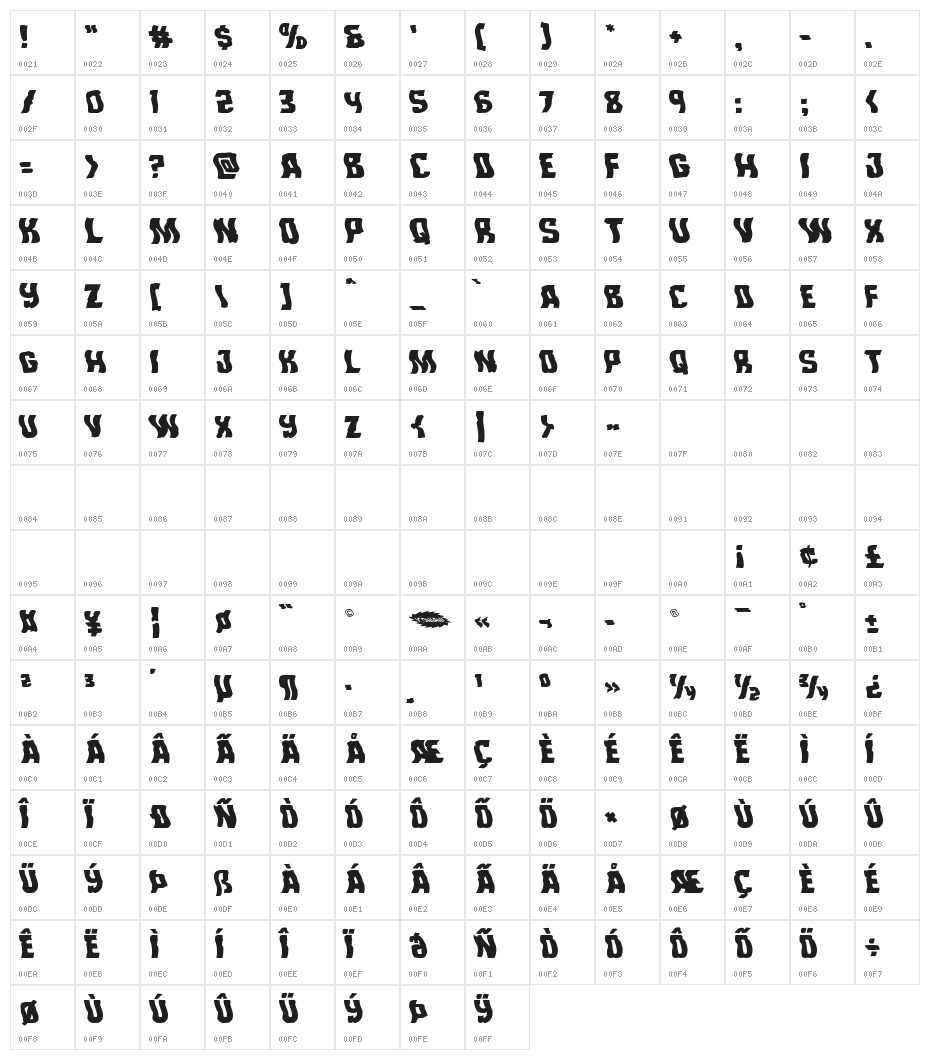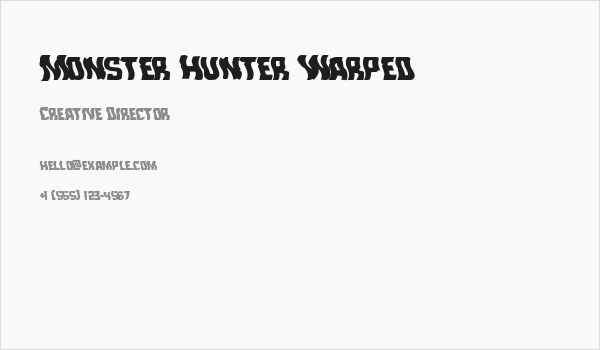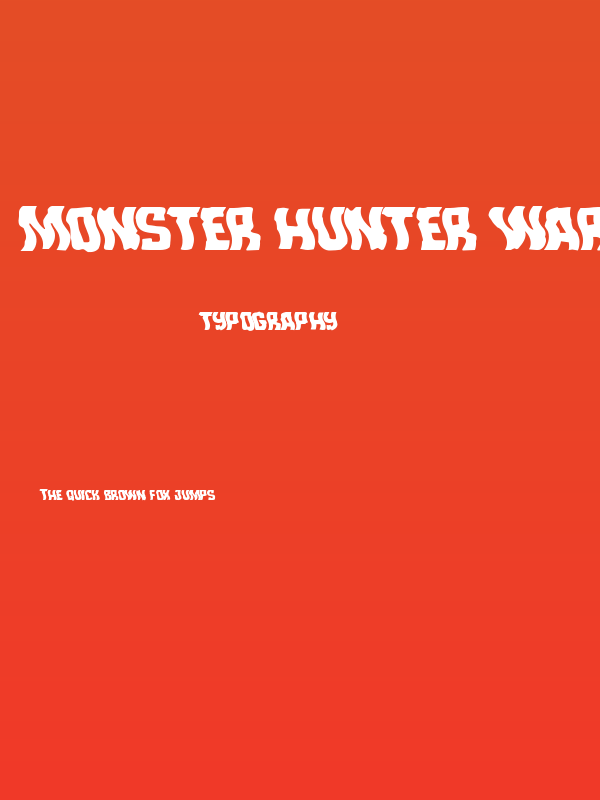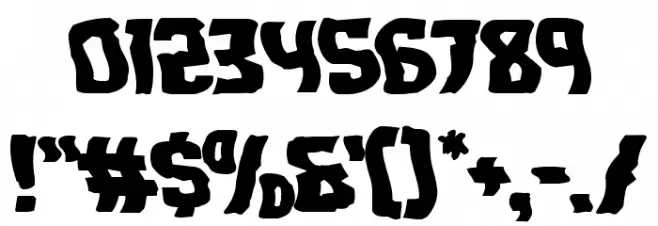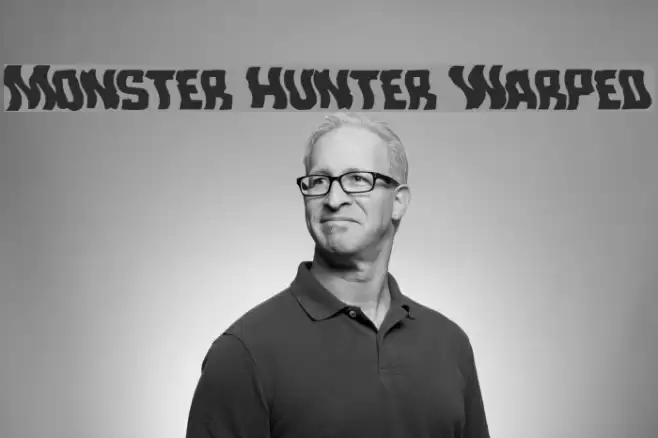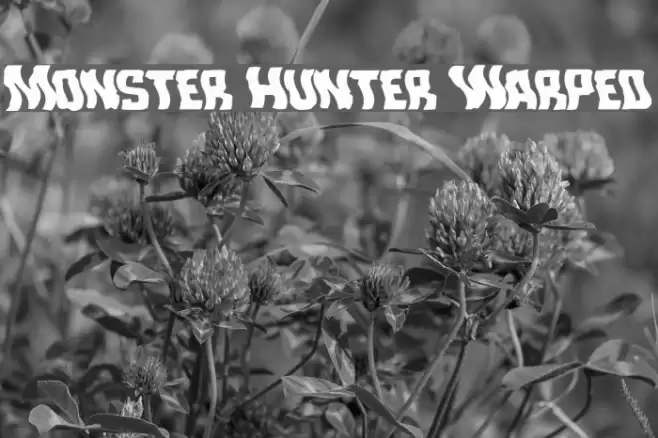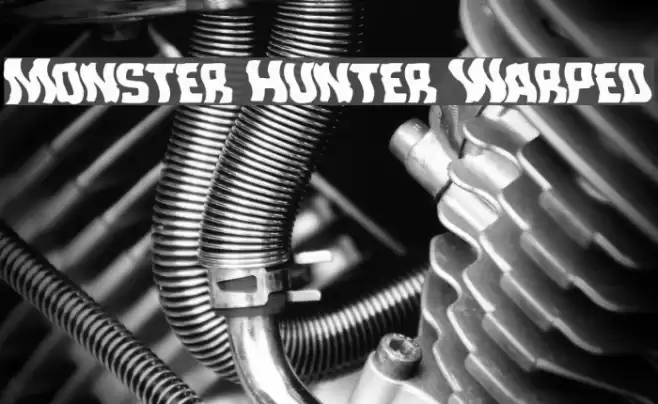
Monster Hunter Warped Font
Monster Hunter Warped Description
This font exudes a bold and adventurous spirit, characterized by its thick, distorted letterforms that create a sense of movement and energy. The irregular shapes and warped lines give it a unique, rugged appearance, reminiscent of a wild, untamed landscape. Each character is distinct, with exaggerated curves and angles that enhance its dynamic feel. The font maintains a consistent weight throughout, ensuring readability while still offering a playful and unconventional aesthetic. Its bold presence makes it ideal for projects that require a strong visual impact.
| Proposed Projects | Perfect for video game titles, movie posters, adventure-themed branding, and eye-catching headlines. |